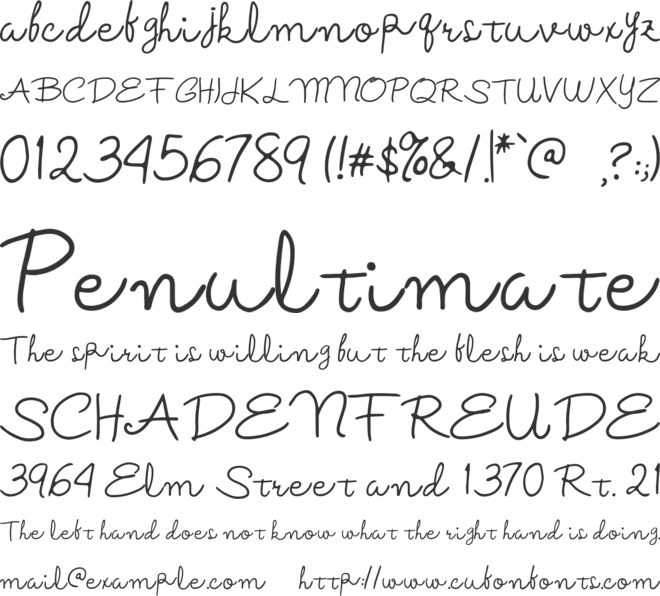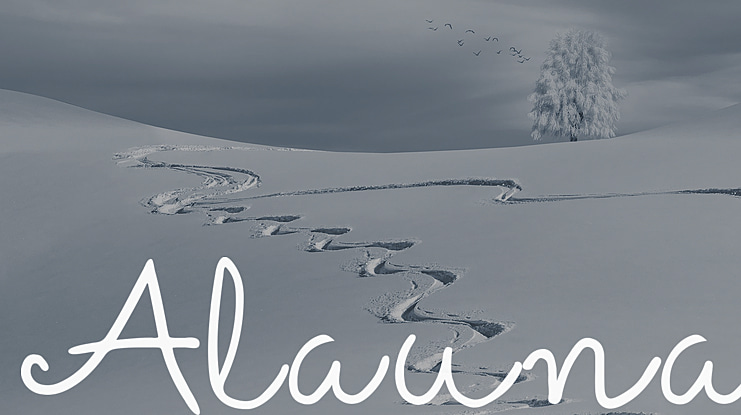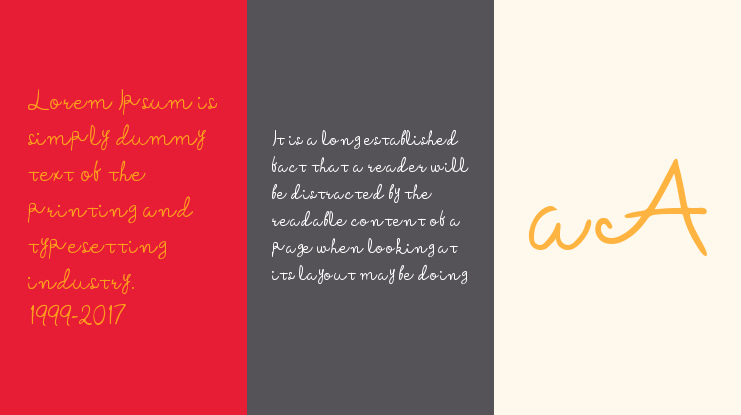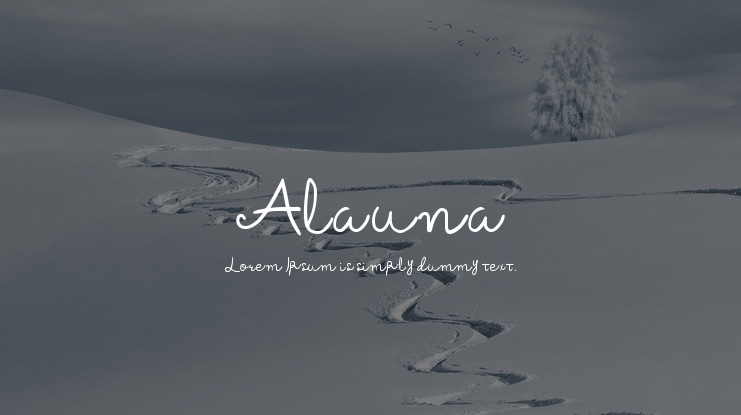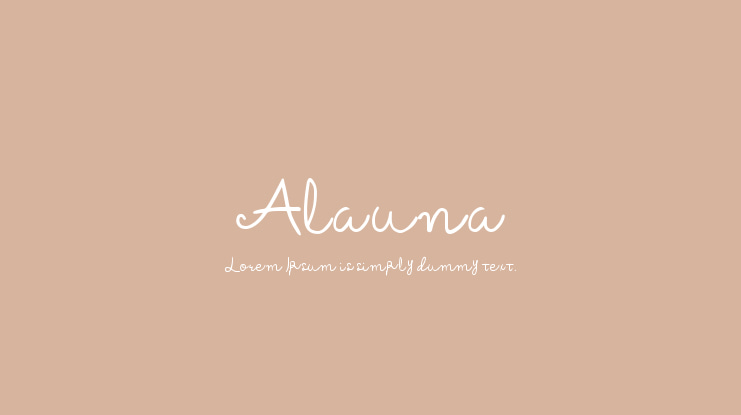
Alauna Font
Made Arini Hanindharputri
Alauna is a handwritten font originally made by our designer signature. This font look beautiful with the shape and the lines. Alauna font will look beautiful when you use it in invitation design, quotes, menu design, signature, novel text, blog text, website, poster, brochure, flyers and fashion catalogue.